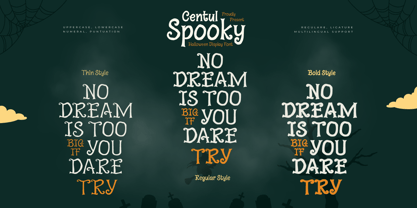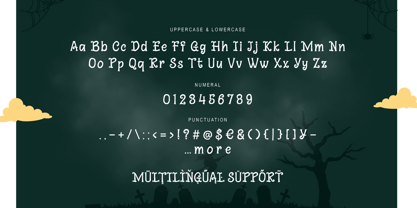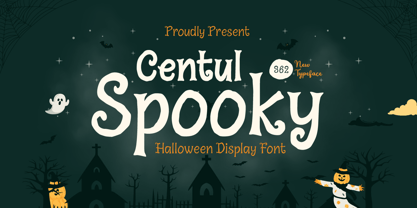
Centul Spooky
by Trabas Kriya
The Centul Spooky Font Family was designed by Murozakul Akhsan and published by Trabas Kriya. Centul Spooky contains 3 styles and family package options. More about this family
Centul Spooky - Halloween Font is a cheerful yet spooky typeface, perfect for Halloween-themed designs. With unique and spooky letterforms, this font adds a fun and eerie feel to posters, party invitations, packaging, and any project that needs a touch of spooky charm. Centul Spooky captures the essence of Halloween with its whimsical and spooky design, making it perfect for fun yet playful creations.
Designers: Murozakul Akhsan
Foundry: Trabas Kriya